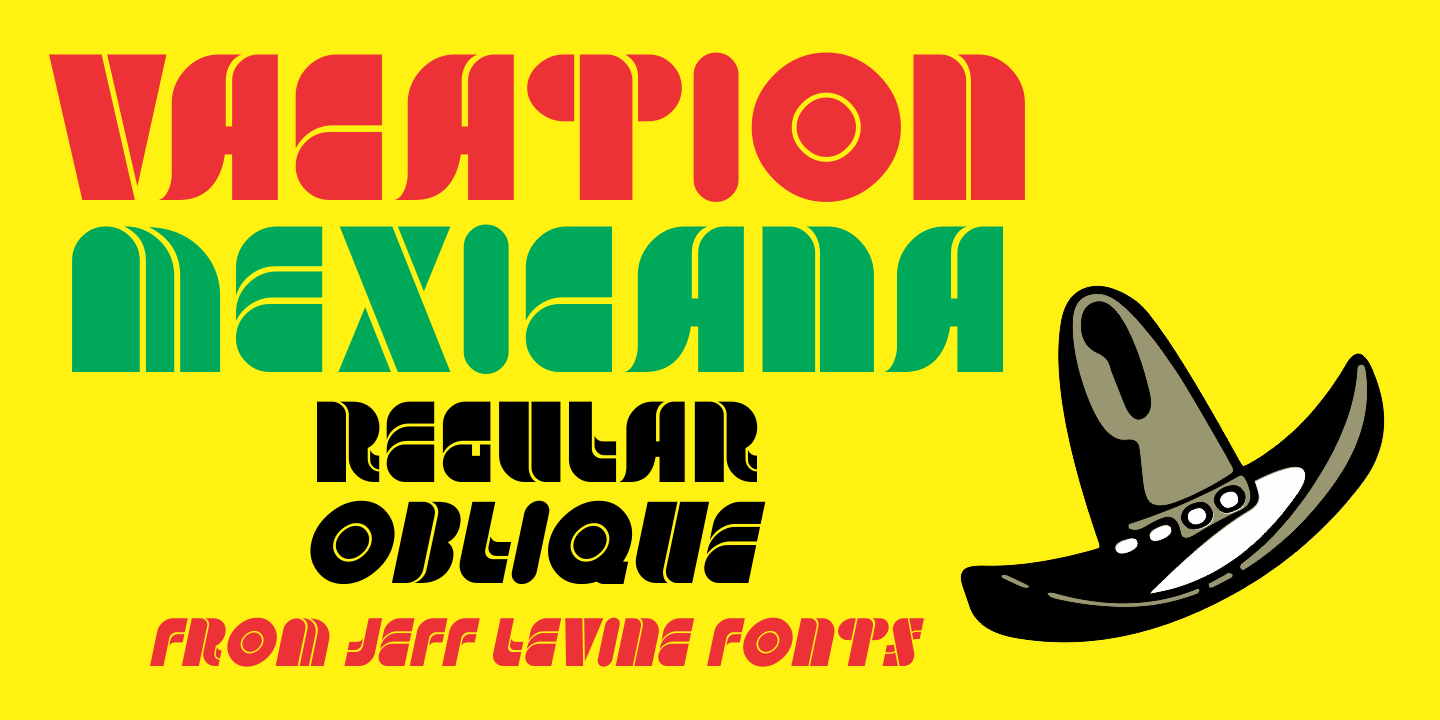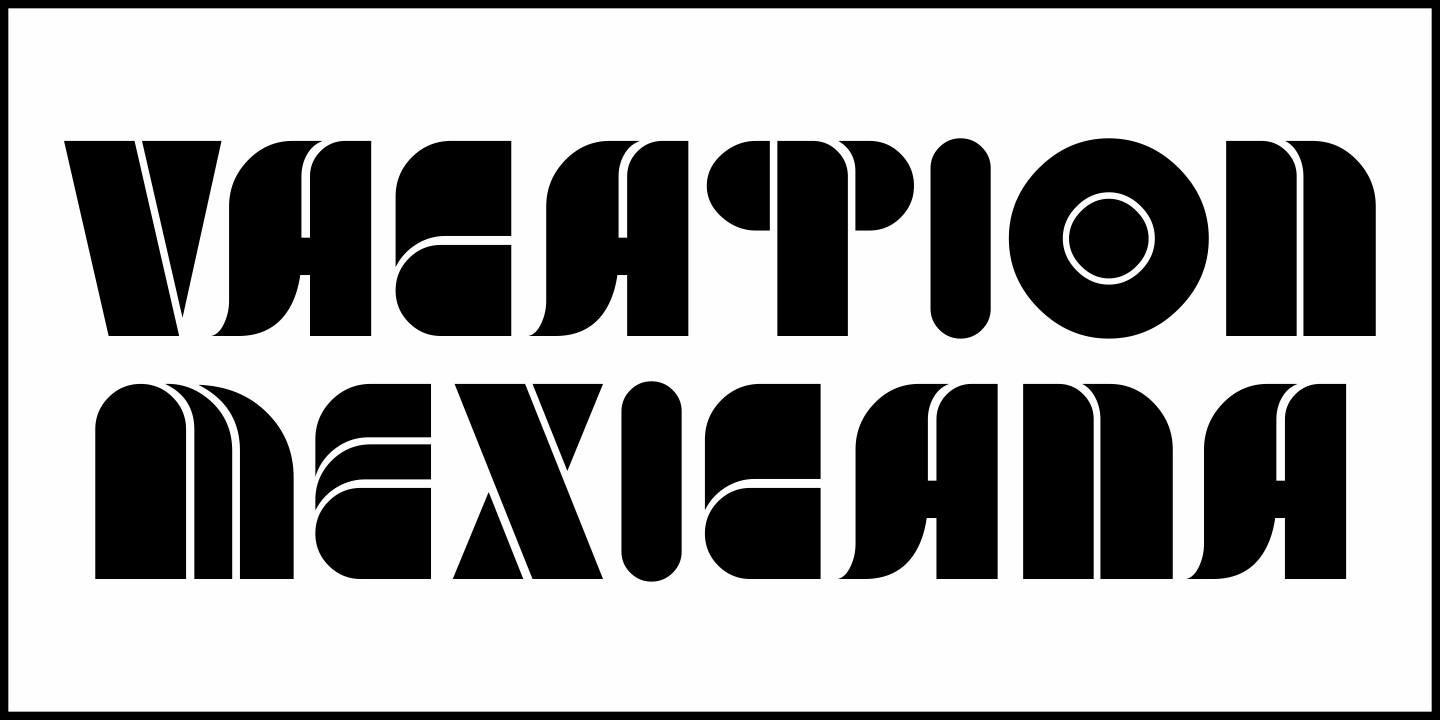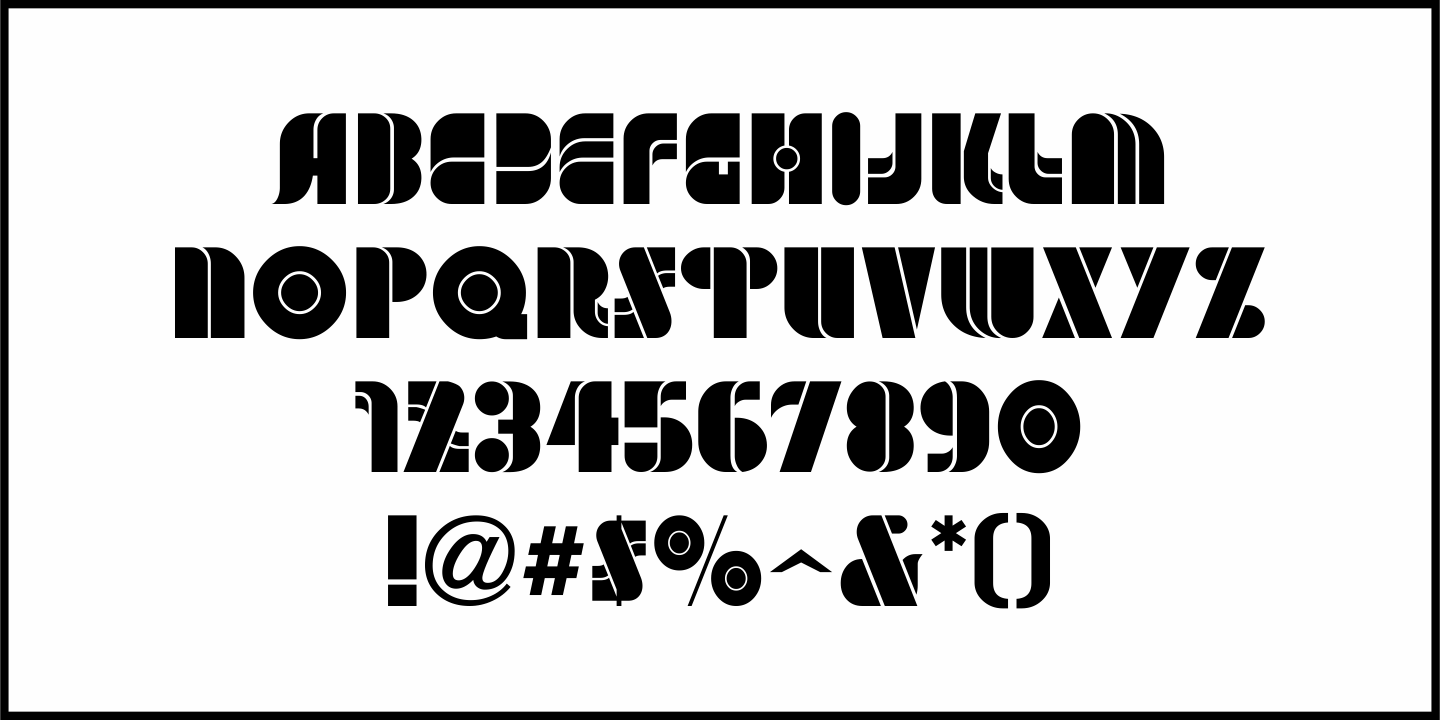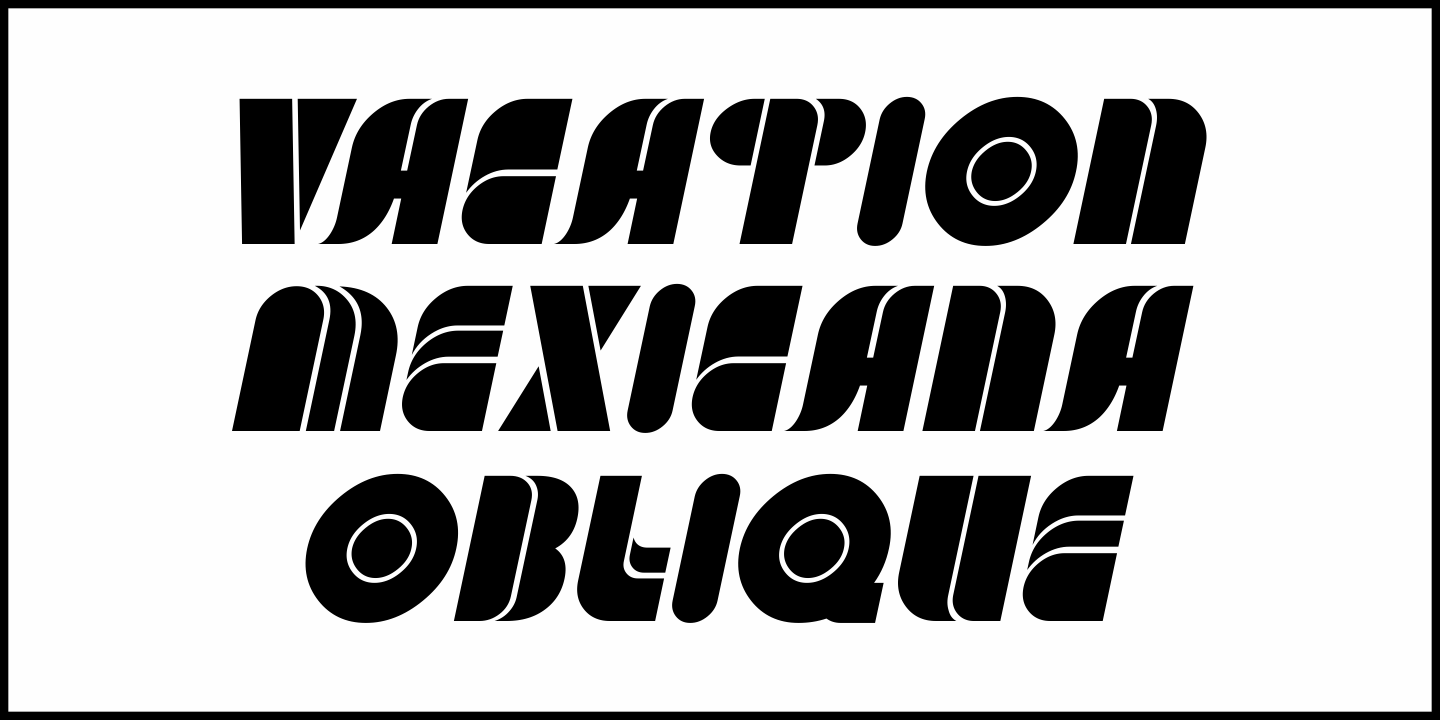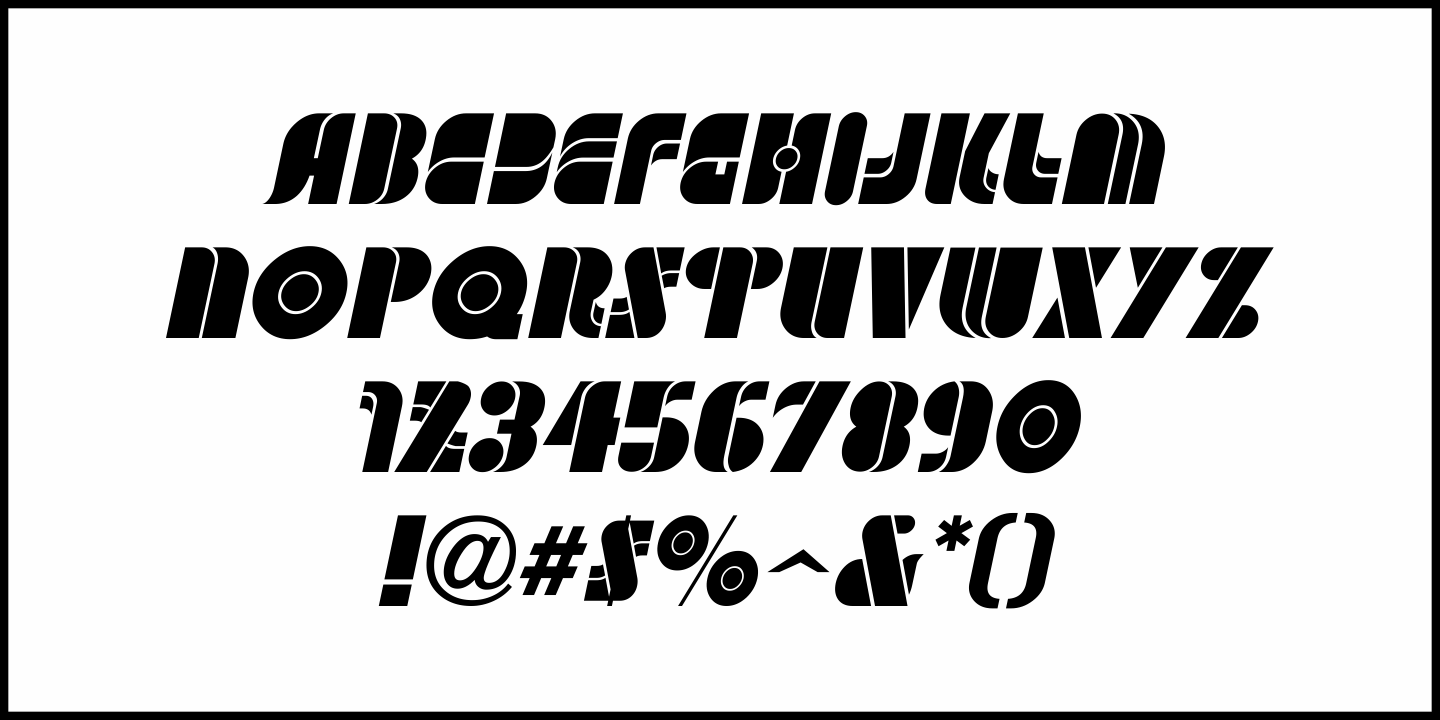
Vacation Mexicana
An image for a travel poster for the resort of Tulum, Mexico with its 1970s-era highly stylized semi-stencil type design inspired Vacation Mexicana JNL; available in both regular and oblique versions.
Vacation Mexicana JNL Regular by Jeff Levine Fonts